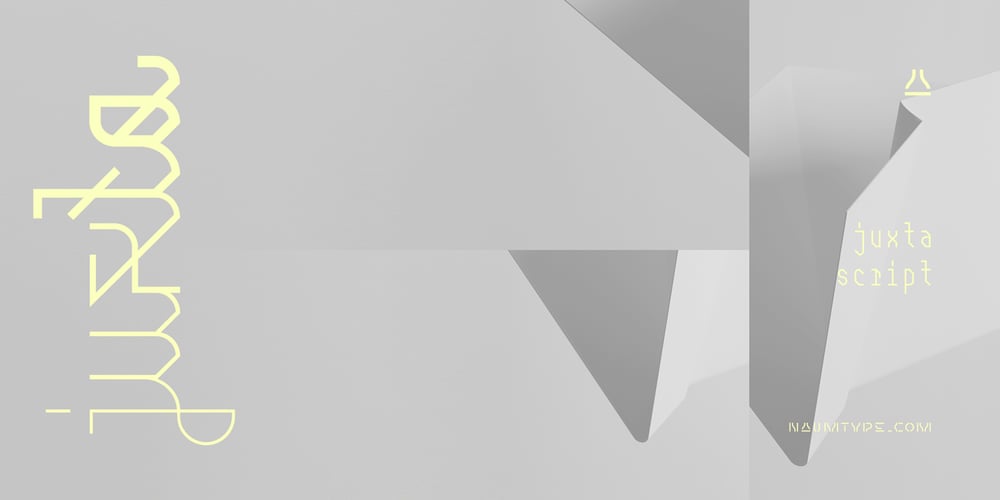
Juxta Font Family was designed by Peter Bushuev and published by NaumType. Juxta contains 7 styles and family package options. Juxta is a unique experimental and futuristic script. It was born from the idea to combine two antipodes: programming fonts aesthetics and handwritten script. Juxta has witty and jagged character combined with a perfect grid structure and certain decorative elements, such as cross out letters, that gives it the spirit of Nordic minimalistic design. Juxta script is a part of Juxta superfamily, united by the same aesthetics, which currently also includes Juxta sans. Juxta script is available in 7 weights, including Thin, Light, Regular, Medium, SemiBold, Bold, and Black. It is a potential leitmotif of graphic design projects that need a creative breakthrough, including logos, labels, branding, identity, website design, album art, posters, advertising. Juxta offers standard ligatures, contextual and stylistic alternates. It extends multilingual support to Basic Latin, Western European, Euro, Catalan, Baltic, Turkish, Central European, Pan African Latin, Afrikaans, and Basic Cyrillic for exceptionally far-reaching global accessibility.